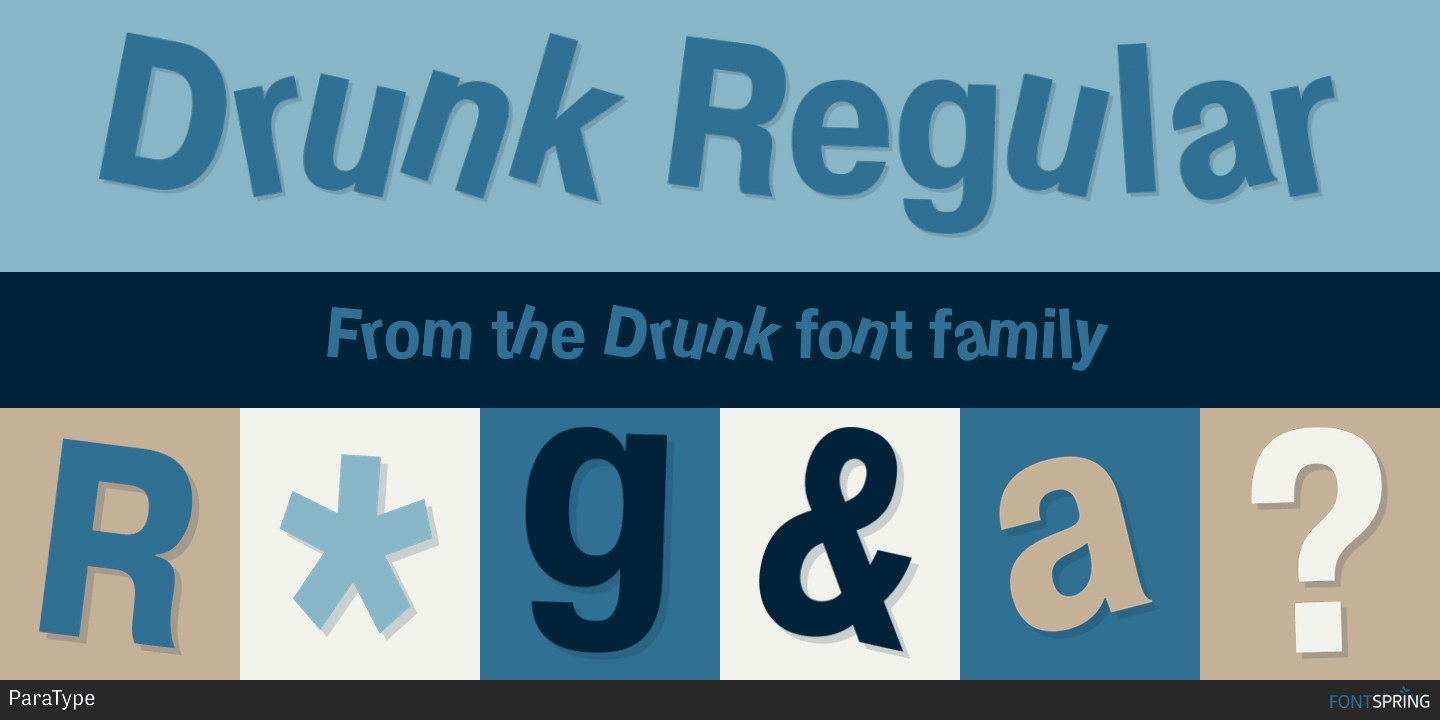
Designed by Alexander Tarbeev, Drunk is a display sans font published by ParaType.
Developed for ParaType (ParaGraph) in 1997 by Alexander Tarbeev, based on PT Pragmatica, 1989, by Vladimir Yefimov. For use in advertising and display typography.
Designer | Alexander Tarbeev |